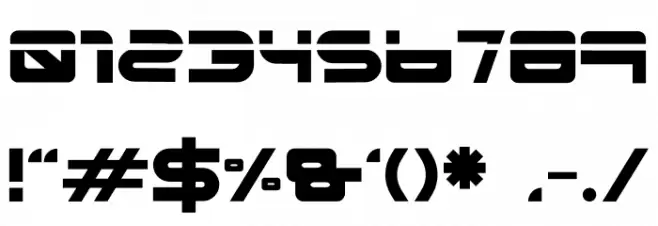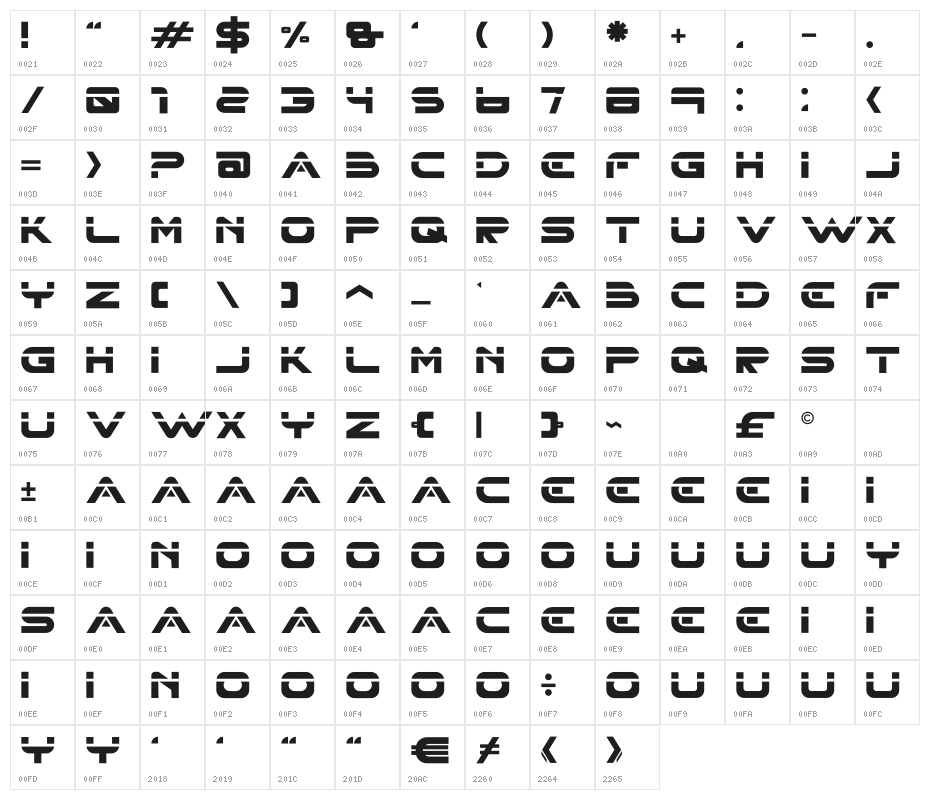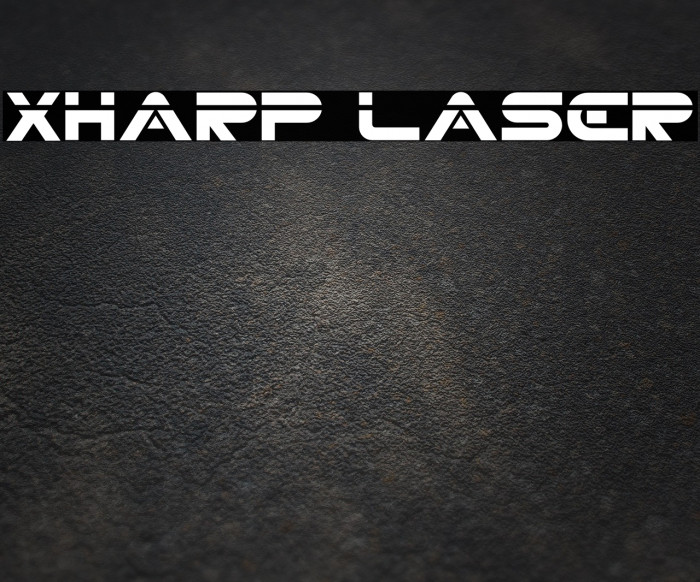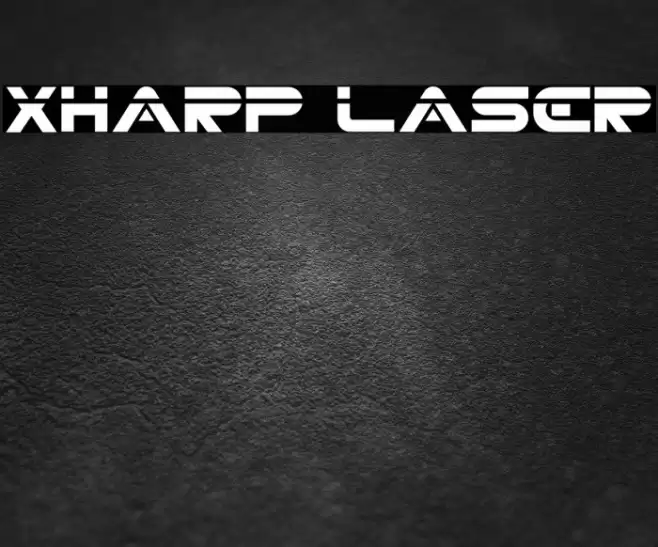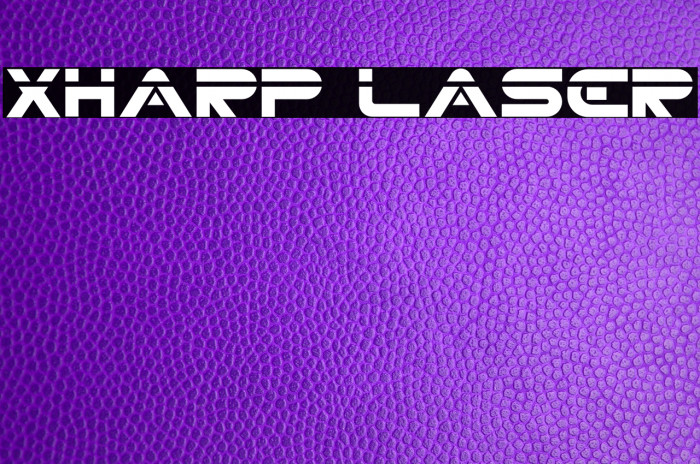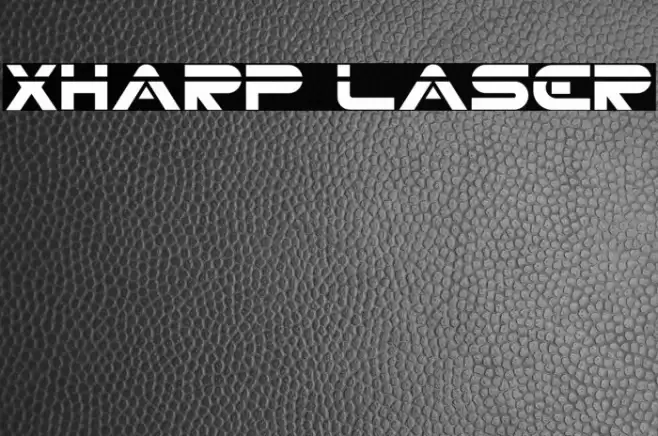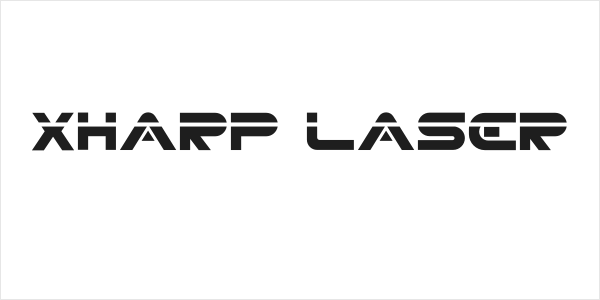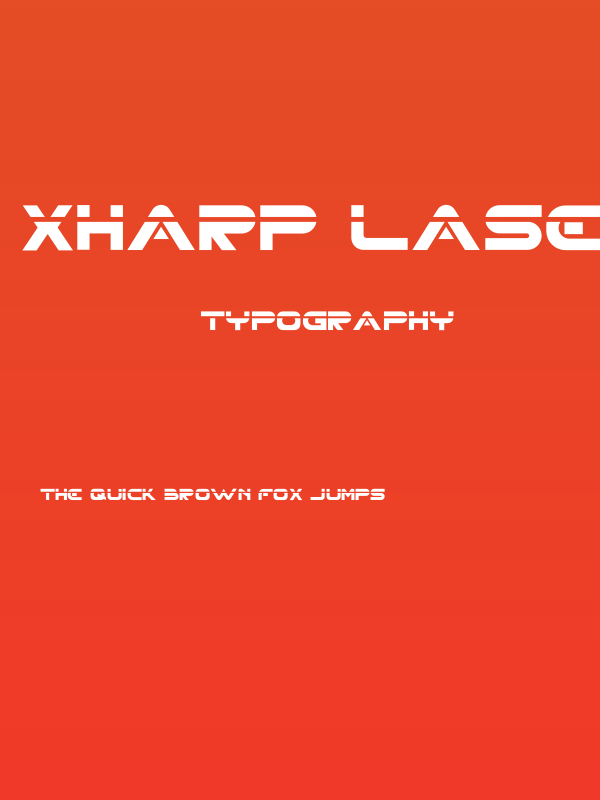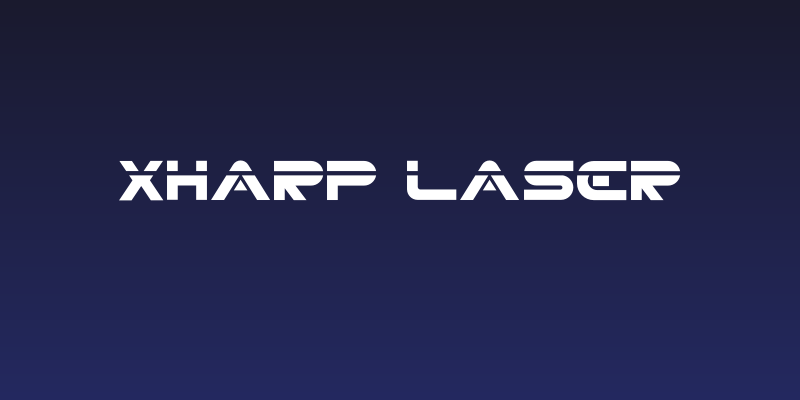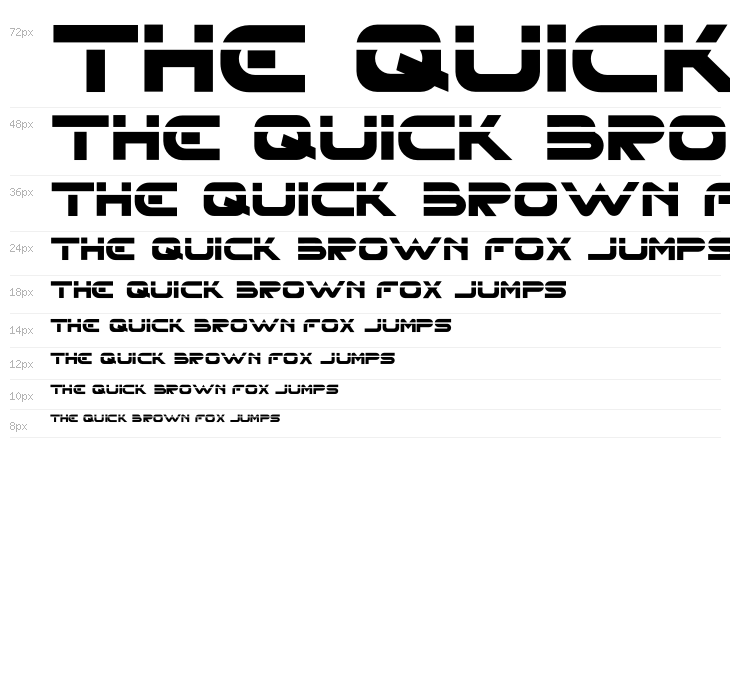
XHARP LASER Font
XHARP LASER Description
This font features a futuristic and angular design, characterized by sharp edges and geometric shapes. The letters are bold and have a distinctive cut-out style, giving them a high-tech and modern appearance. The uppercase and lowercase letters maintain a consistent style, with uniform stroke widths and a sleek, streamlined look. Numbers and special characters follow the same design principles, ensuring a cohesive visual identity. The font's unique aesthetic makes it suitable for projects that require a contemporary and cutting-edge feel.
| Use Case | Logos, Headlines |
| Proposed Projects | Ideal for technology branding, sci-fi movie posters, video game titles, and modern logo designs. |